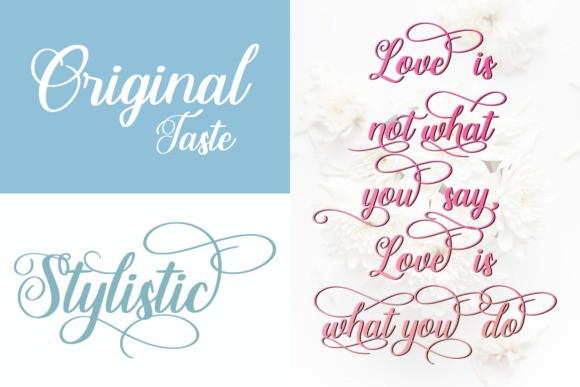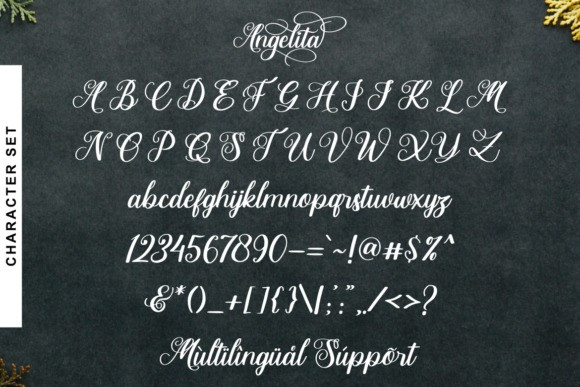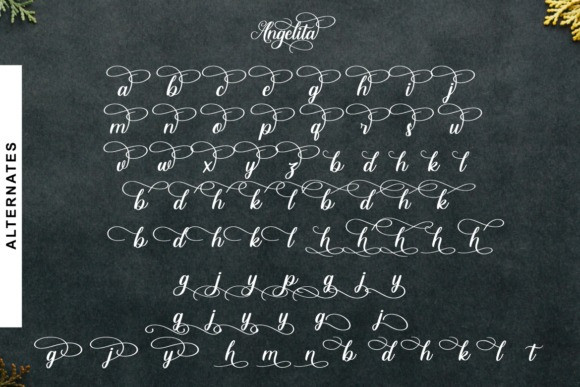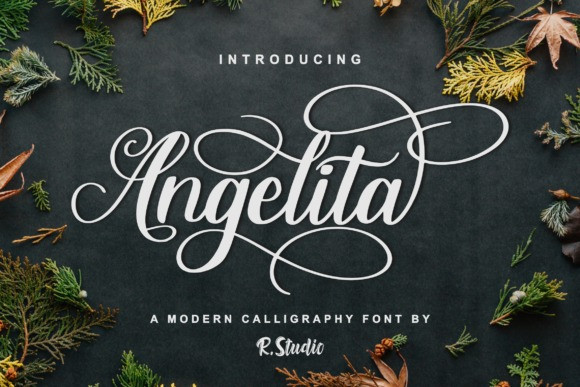
Angelita Script Font
Say Hello Guy’s. Thank you for looking Angelita Calligraphy Font. This is a script font with a calligraphy style. It’s a modern calligraphy font. It’s got classic look and a dancing baseline and is perfect for adding an elegant touch to your designs. It’s great for creating signature logos and watermarks for photography studio, healine, wedding invitation & etc. Simplified comes with opentype features such as lowercase beginning & ending swashes, multilingual symbols and gorgeous ligatures